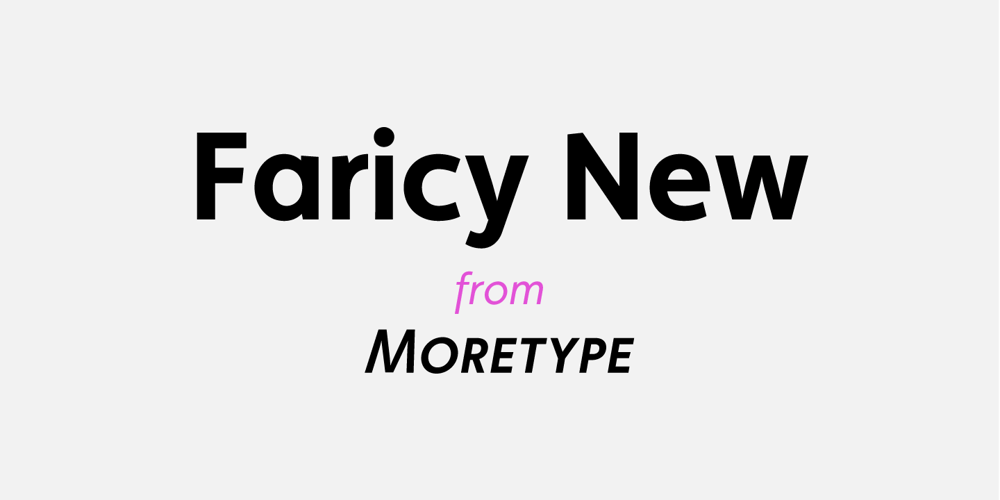
Faricy New Font Family was designed by Chris Dickinson and published by moretype. Faricy New contains 8 styles and family package options. Faricy New is the updated version of Faricy originally released in 2004. Completely re-drawn from the ground up , but retaining its original modern appeal, Faricy New is now re-released as an Opentype font with new spacing and kerning. The new version has small caps, tabular, proportional and old style numerals and ligatures.